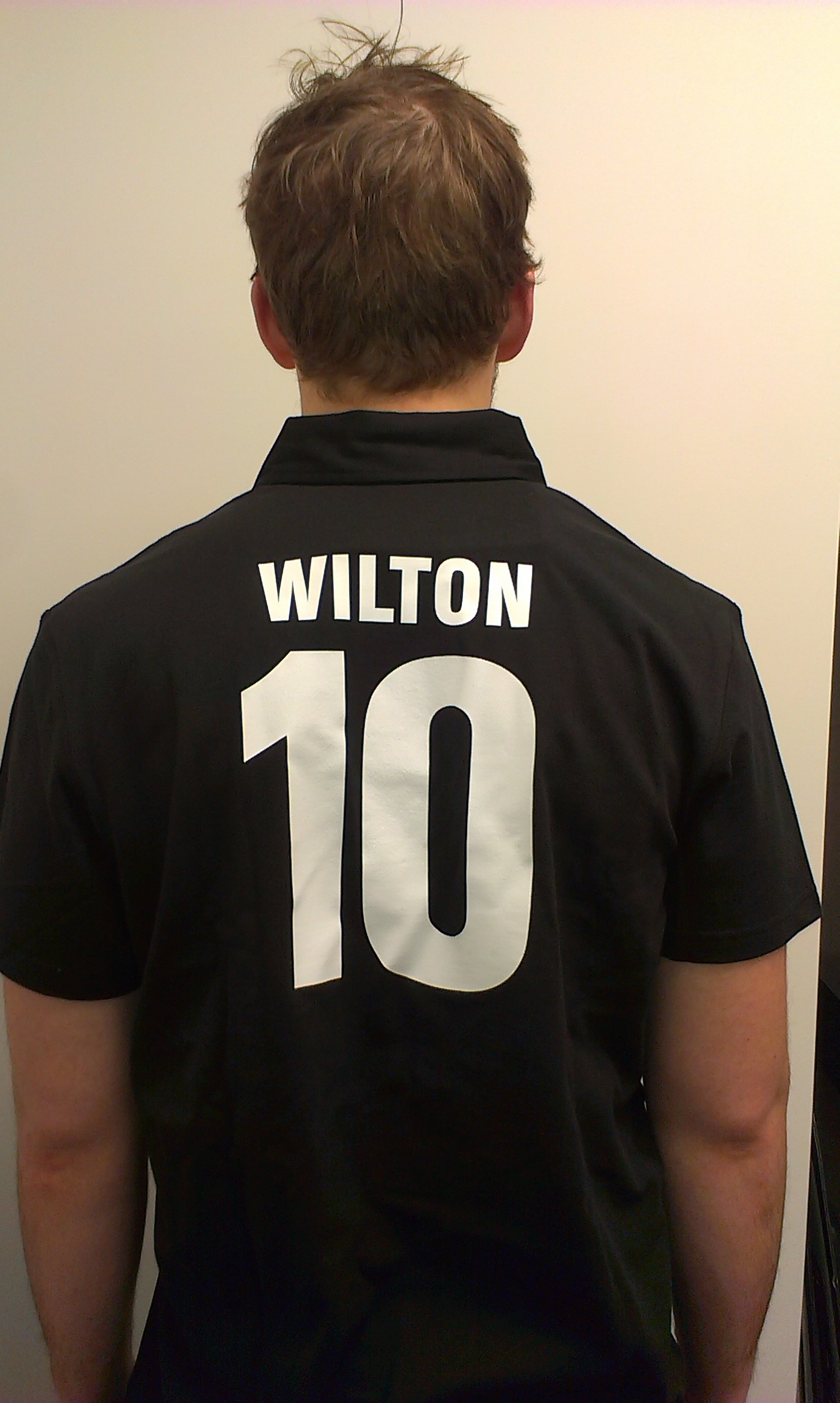
Hi, I have a customer that wants a font called Nouveau but I can’t find the same font online just other variants which look way different.
Anyone know where I can find it? It’s a pretty simple font and I thought I’d heard of it before. I know they probably have to pay for it just have no idea where to find it. Thanks appreciate any help.